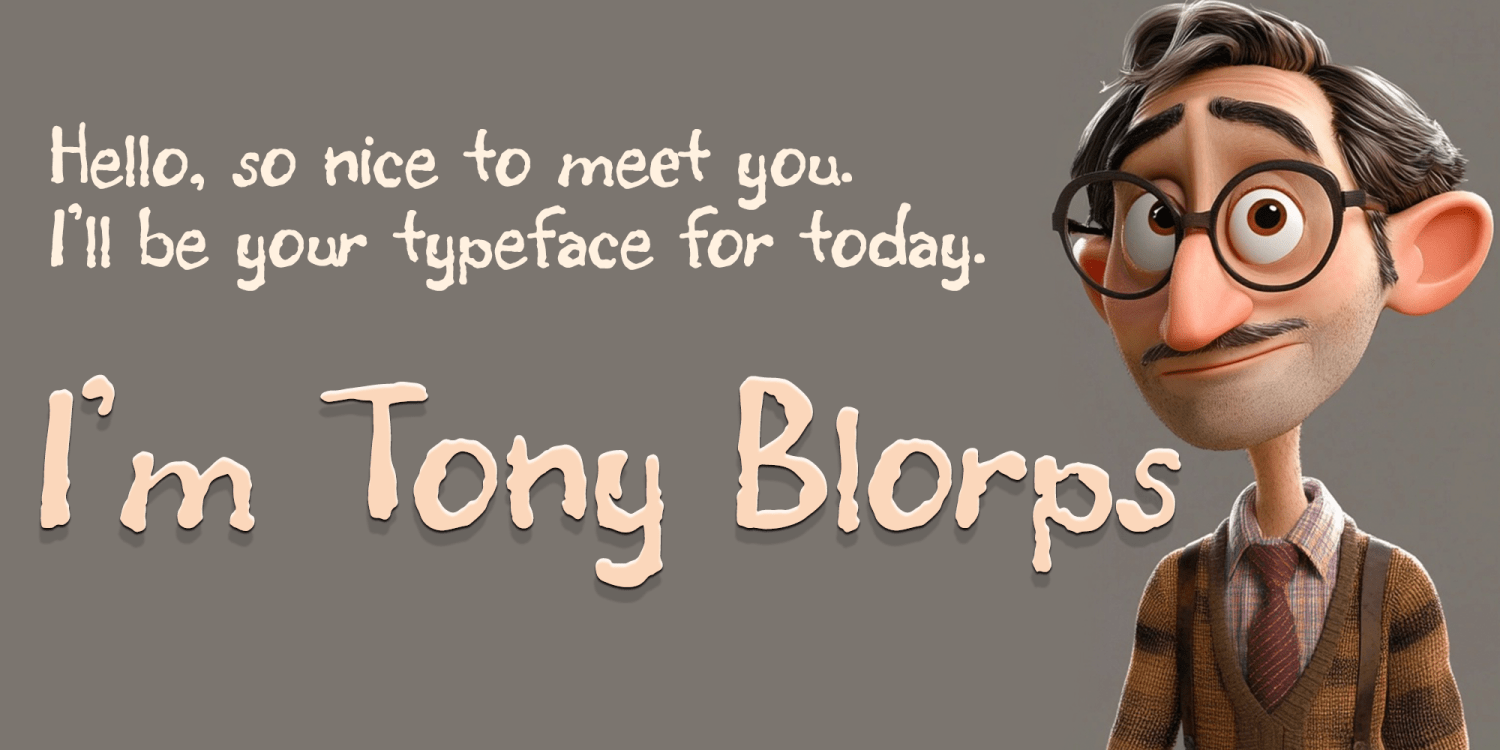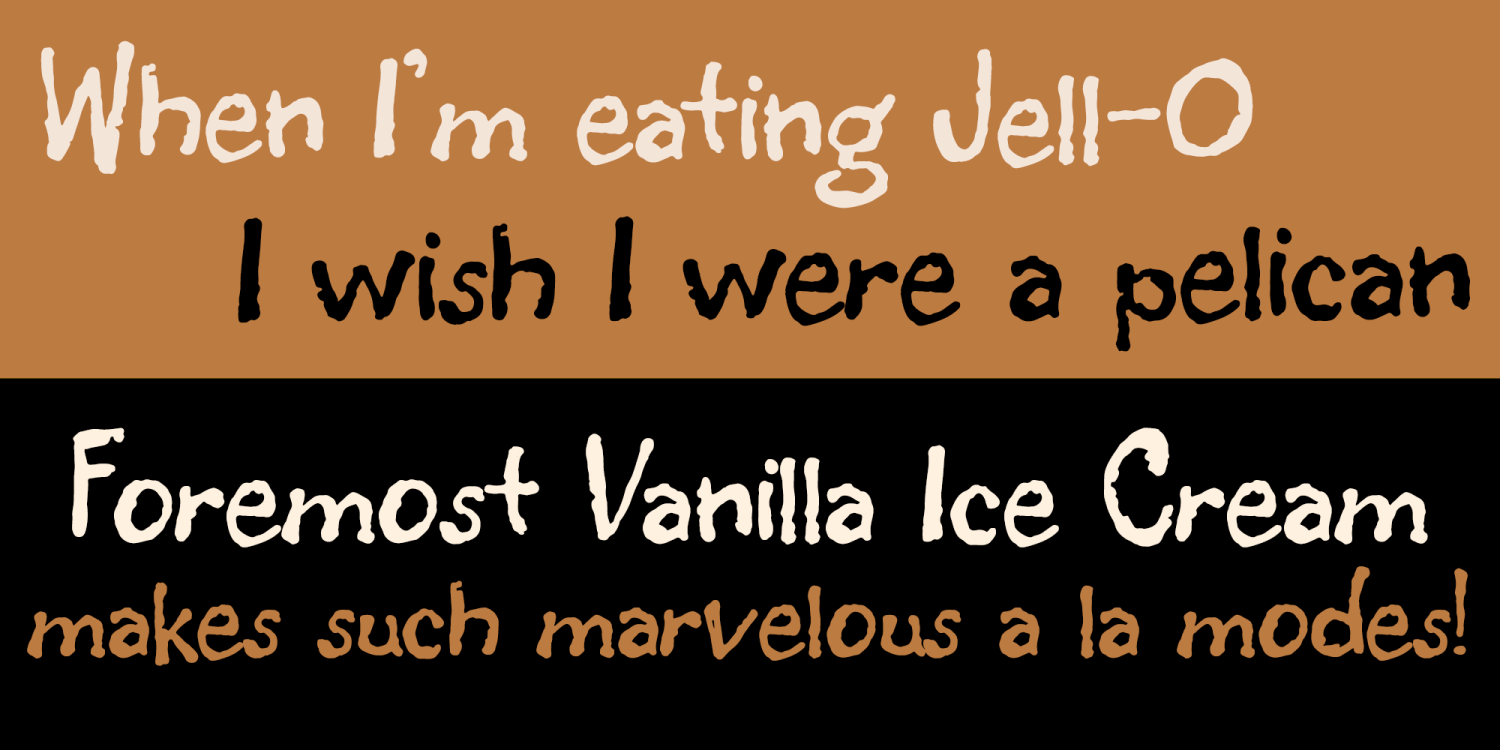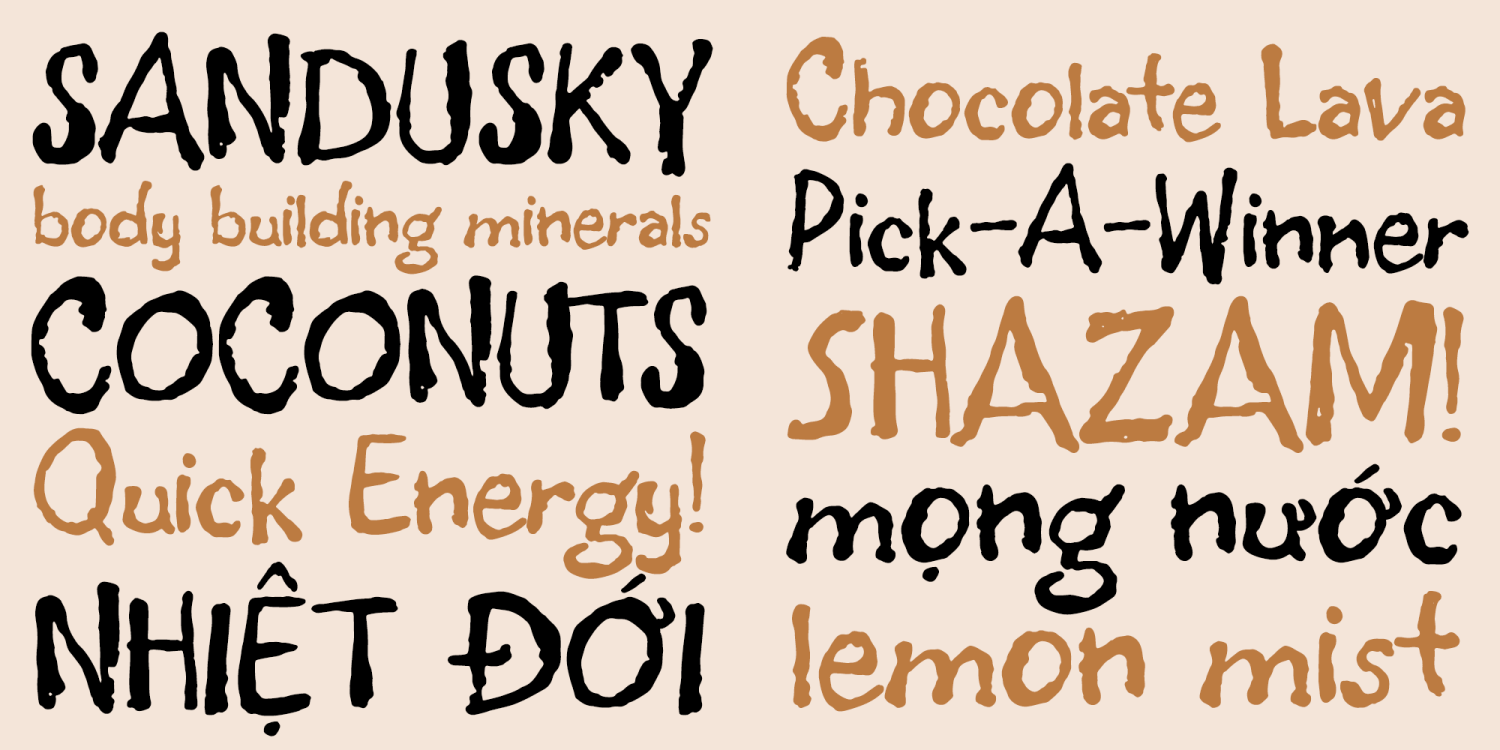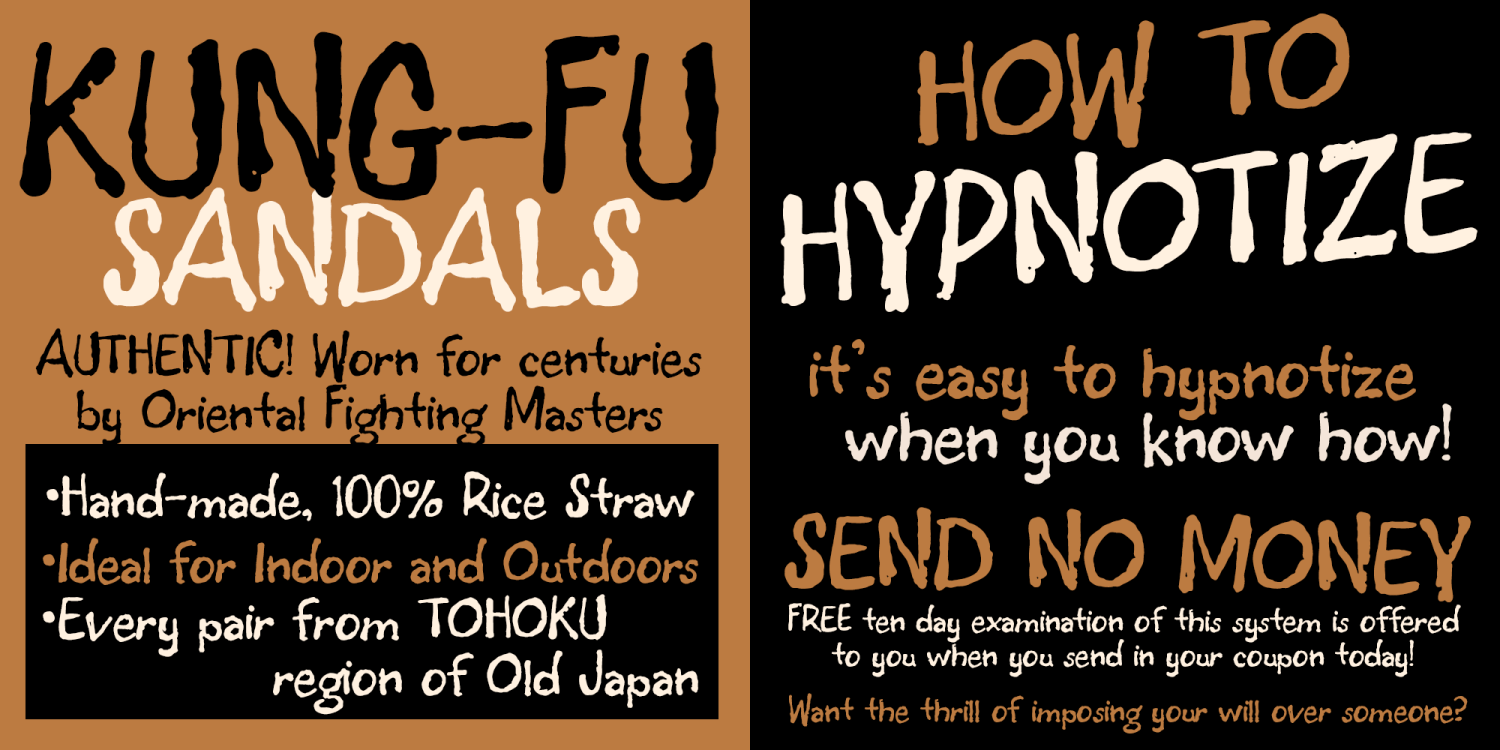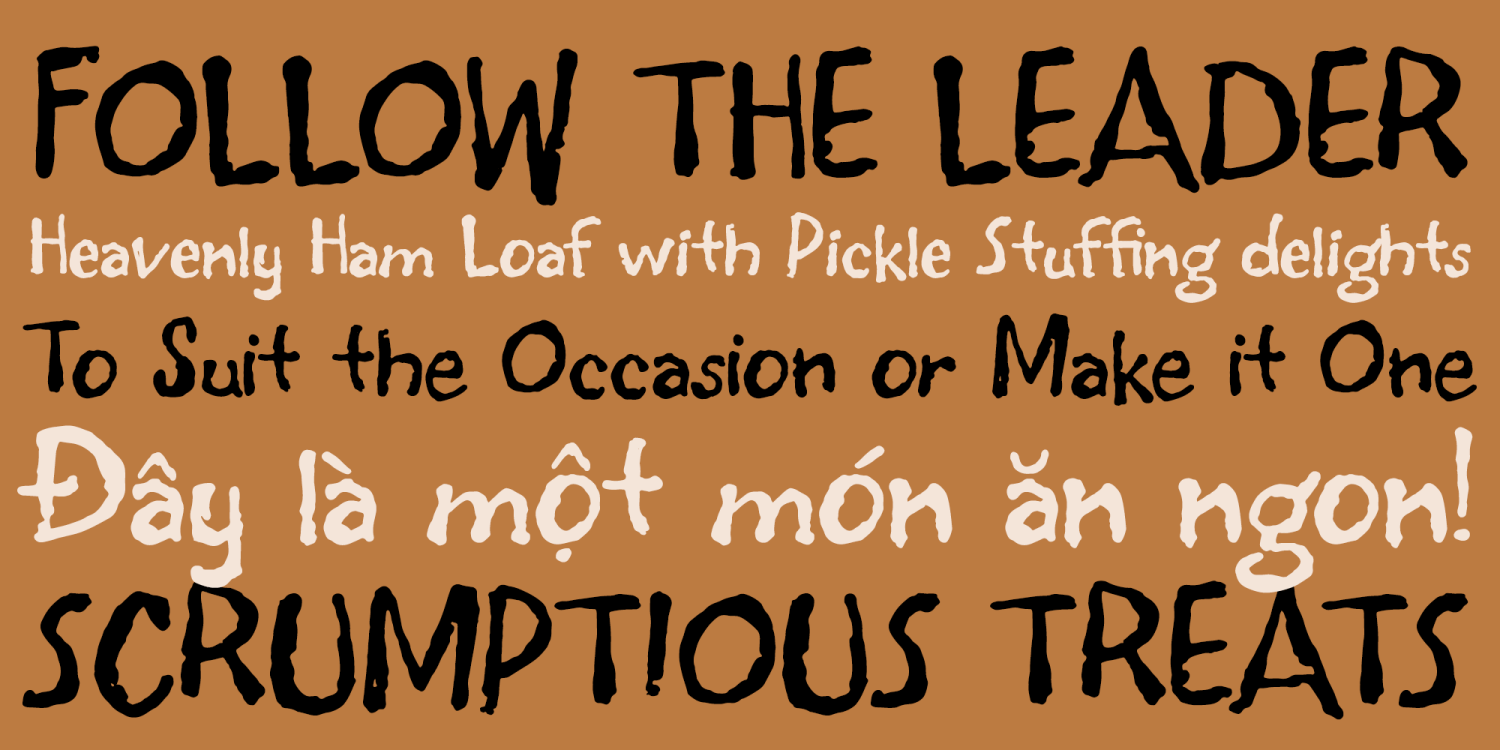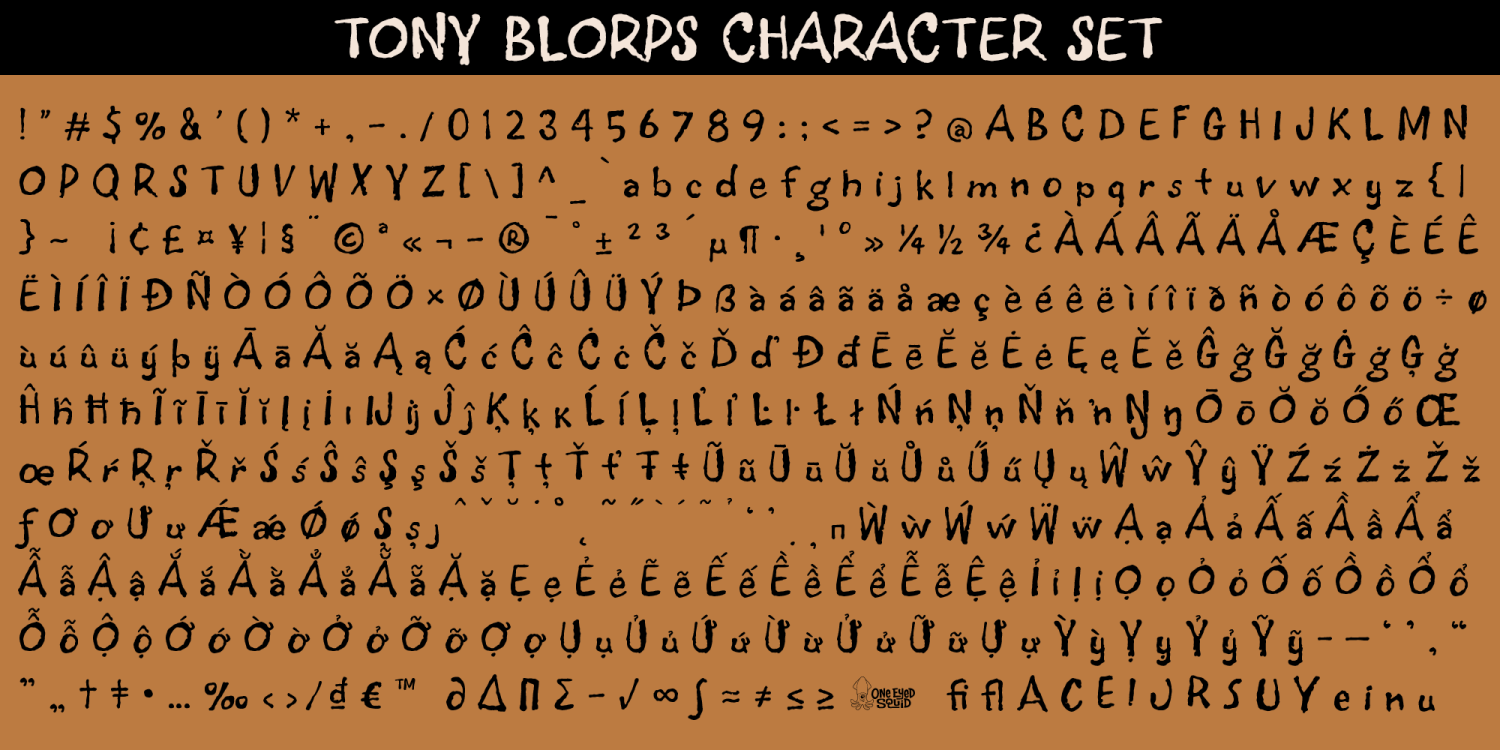
Tony Blorps
Tony Blorps is a quirky handwritten display font with a roughened texture, offbeat personality, and a warm, expressive voice. With its casual, slightly imperfect letterforms, it brings a human touch and playful charm to designs that benefit from a relaxed, personal feel. Tony Blorps works well for longer typesettings compared to many display styles, making it a versatile choice for posters, branding, packaging, editorial layouts, social media graphics, and creative projects that call for a friendly, unconventional handwritten look. Full of character and subtle attitude, it adds personality without sacrificing readability. Includes extended Latin language support, including Vietnamese.
Tony Blorps includes 495 glyphs.